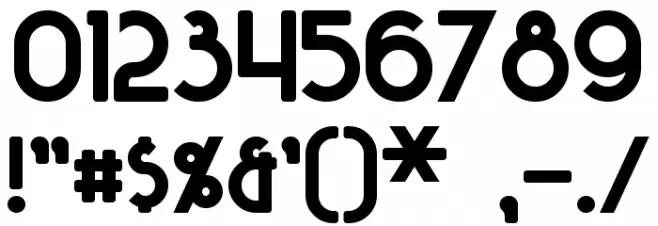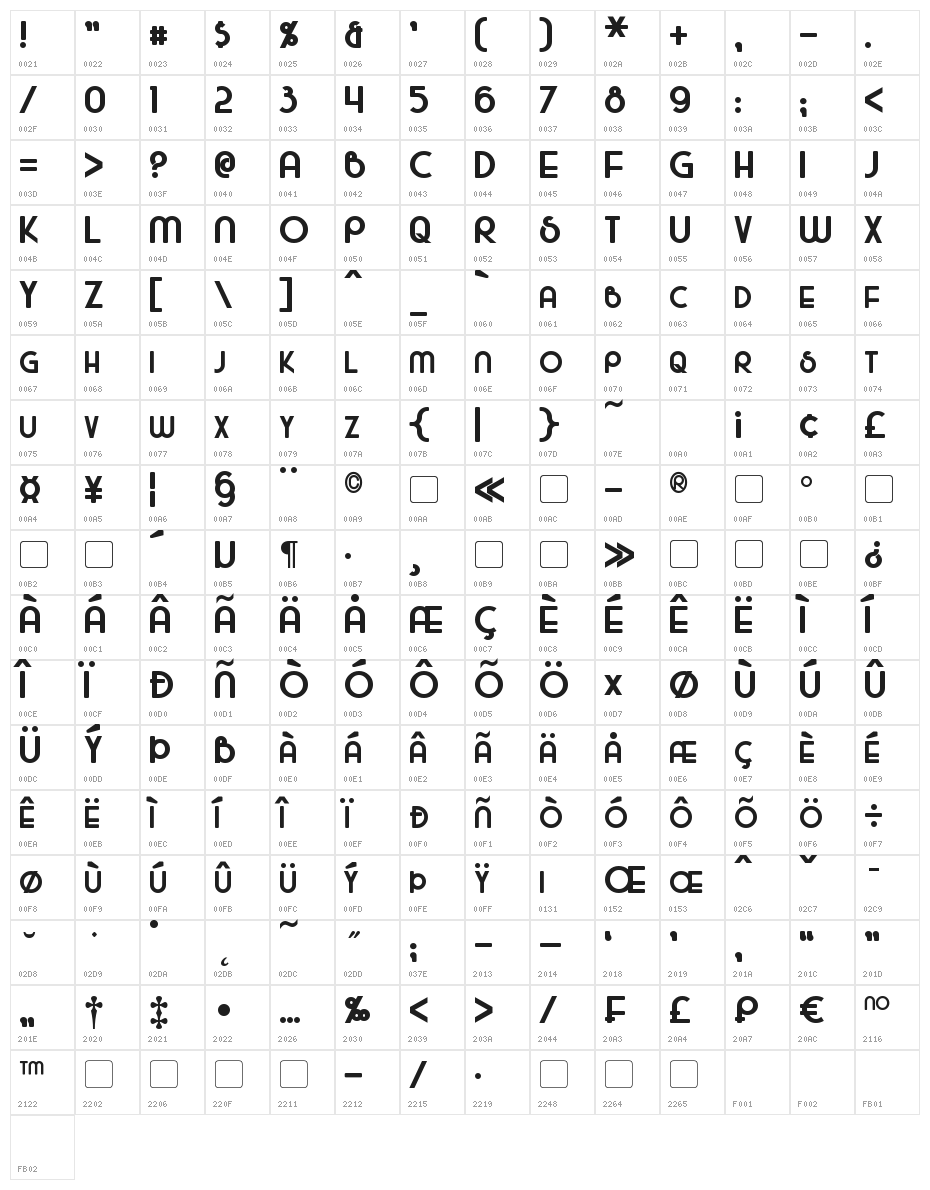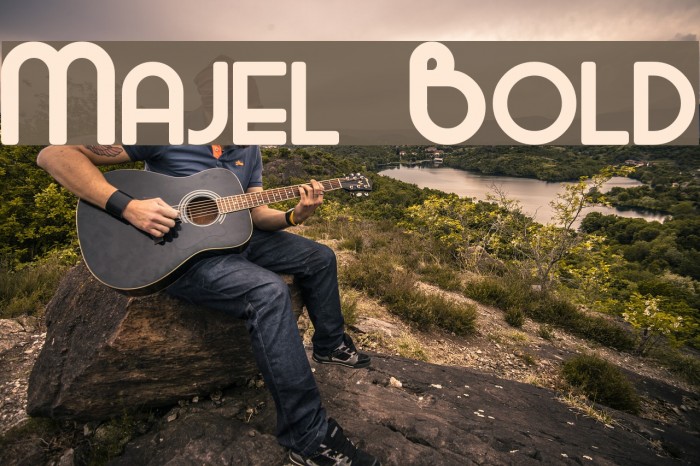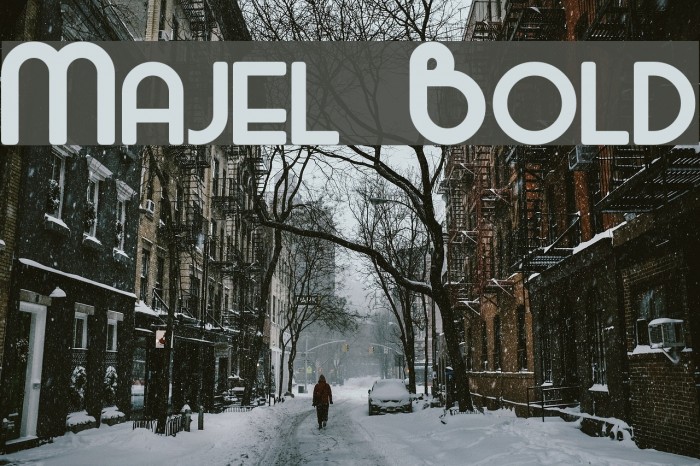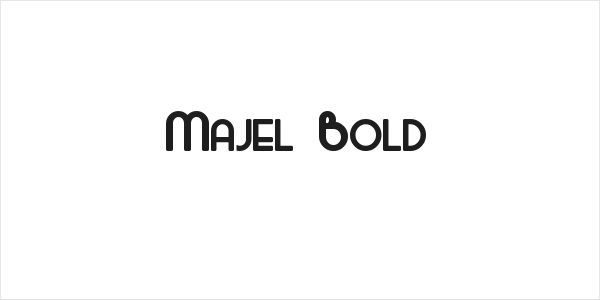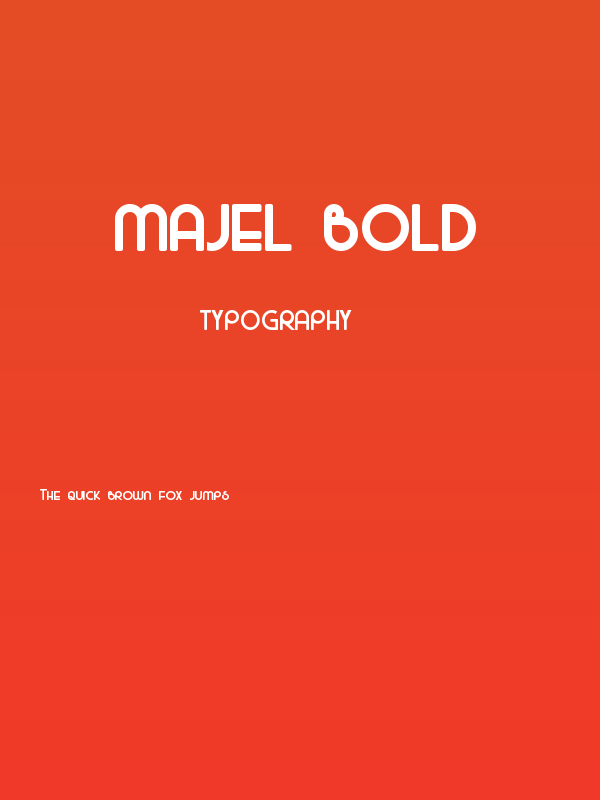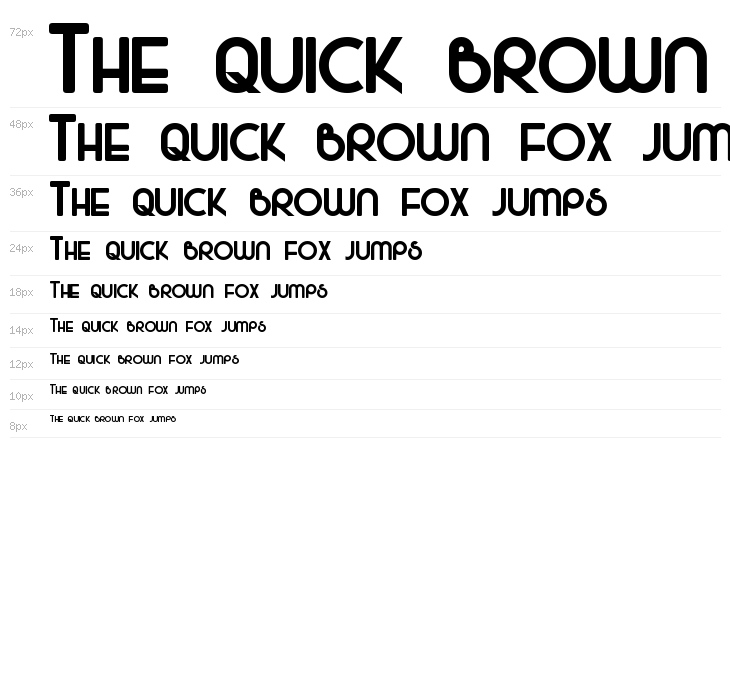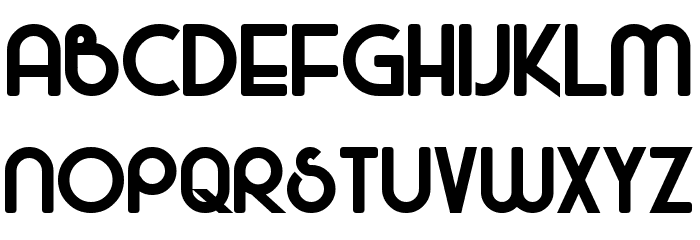
Majel Bold Font
Majel Bold Description
This font features a bold and rounded style with a modern and futuristic aesthetic. The characters are uniformly thick, creating a strong visual impact. The rounded edges give it a friendly and approachable feel, while the consistent stroke width maintains clarity and readability. The design is clean and geometric, making it suitable for various digital and print applications. The numerals and special characters are designed to match the boldness and rounded style of the letters, ensuring a cohesive look across all text elements.